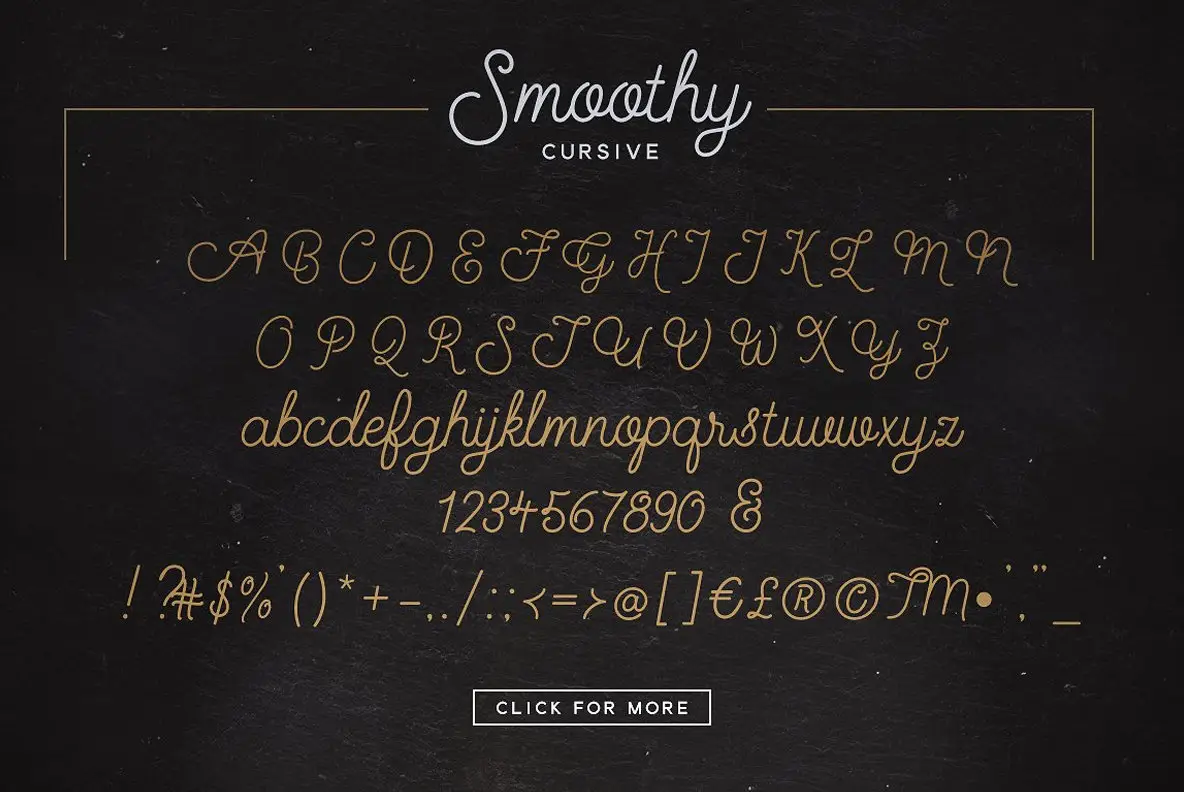
Smoothy Cursive Font . The font was designed by ian. Web smoothy font | dafont.com english français español deutsch italiano português.
Web smoothy font | dafont.com english français español deutsch italiano português. Web we have 0 free smooth, cursive fonts to offer for direct downloading · 1001 fonts is your favorite site for free fonts since 2001 The font subfamily is cursive.
Web smoothy font | dafont.com english français español deutsch italiano português. Web we have 0 free smooth, cursive fonts to offer for direct downloading · 1001 fonts is your favorite site for free fonts since 2001 Smoothy cursive ttf (400) by ianbarnard Web smoothy cursive is the perfect font for all your fun designs.
Smoothy Cursive Font - Web we have 0 free smooth, cursive fonts to offer for direct downloading · 1001 fonts is your favorite site for free fonts since 2001 Web we have 38 free smooth, cursive, handwritten fonts to offer for direct downloading · 1001 fonts is your favorite site for free fonts. Web smoothy cursive is the perfect font for all your fun.
Smoothy Cursive Font - Web we have 0 free smooth, cursive fonts to offer for direct downloading · 1001 fonts is your favorite site for free fonts since 2001 Web we have 38 free smooth, cursive, handwritten fonts to offer for direct downloading · 1001 fonts is your favorite site for free fonts. Web smoothy is a 2 font family with a mono weight.
Smoothy Cursive Font - The font subfamily is cursive. Web we have 38 free smooth, cursive, handwritten fonts to offer for direct downloading · 1001 fonts is your favorite site for free fonts. The font was designed by ian. Smoothy cursive ttf (400) by ianbarnard Web smoothy cursive is the perfect font for all your fun designs.
Smoothy Cursive Font - Popular adobe express templates that use. Web we have 38 free smooth, cursive, handwritten fonts to offer for direct downloading · 1001 fonts is your favorite site for free fonts. The quick brown fox jumps over the lazy dog. Smoothy cursive ttf (400) by ianbarnard The font was designed by ian.
Smoothy Cursive Font - The font was designed by ian. The font subfamily is cursive. The quick brown fox jumps over the lazy dog. Popular adobe express templates that use. Web we have 38 free smooth, cursive, handwritten fonts to offer for direct downloading · 1001 fonts is your favorite site for free fonts.
Smoothy Cursive Font - Web we have 0 free smooth, cursive fonts to offer for direct downloading · 1001 fonts is your favorite site for free fonts since 2001 Web smoothy cursive is the perfect font for all your fun designs. The font was designed by ian. Web smoothy font | dafont.com english français español deutsch italiano português. Web smoothy is a 2 font.
Smoothy Cursive Font - Web smoothy is a 2 font family with a mono weight cursive script and a complementary. Web we have 38 free smooth, cursive, handwritten fonts to offer for direct downloading · 1001 fonts is your favorite site for free fonts. The font was designed by ian. Web smoothy font | dafont.com english français español deutsch italiano português. Popular adobe express.
Smoothy Cursive Font - Web smoothy cursive is the perfect font for all your fun designs. The quick brown fox jumps over the lazy dog. Web smoothy font | dafont.com english français español deutsch italiano português. Web download smoothy cursive ttf (400) font. The font subfamily is cursive.
Smoothy Cursive Font - Web we have 0 free smooth, cursive fonts to offer for direct downloading · 1001 fonts is your favorite site for free fonts since 2001 Popular adobe express templates that use. Web smoothy is a 2 font family with a mono weight cursive script and a complementary. The font was designed by ian. Smoothy cursive ttf (400) by ianbarnard
Smoothy Cursive Font - The quick brown fox jumps over the lazy dog. Popular adobe express templates that use. Web we have 38 free smooth, cursive, handwritten fonts to offer for direct downloading · 1001 fonts is your favorite site for free fonts. Web smoothy cursive is the perfect font for all your fun designs. Web smoothy is a 2 font family with a.
Smoothy Cursive Font - Web we have 0 free smooth, cursive fonts to offer for direct downloading · 1001 fonts is your favorite site for free fonts since 2001 The quick brown fox jumps over the lazy dog. Web download smoothy cursive ttf (400) font. Smoothy cursive ttf (400) by ianbarnard Web smoothy font | dafont.com english français español deutsch italiano português.
Smoothy Cursive Font - Web we have 0 free smooth, cursive fonts to offer for direct downloading · 1001 fonts is your favorite site for free fonts since 2001 The font subfamily is cursive. Web smoothy font | dafont.com english français español deutsch italiano português. Popular adobe express templates that use. Web we have 38 free smooth, cursive, handwritten fonts to offer for direct.
Smoothy Cursive Font - The font subfamily is cursive. Web we have 38 free smooth, cursive, handwritten fonts to offer for direct downloading · 1001 fonts is your favorite site for free fonts. Web smoothy font | dafont.com english français español deutsch italiano português. Web we have 0 free smooth, cursive fonts to offer for direct downloading · 1001 fonts is your favorite site.